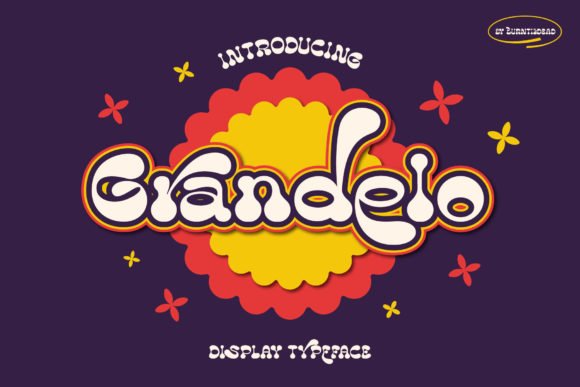
Grandelo Font
Grandelo is a cool, whimsical and retro styled display font. This font is PUA encoded which means you can access all of the glyphs and swashes with ease!
Fall in love with its incredibly distinct style and use it to create spectacular designs!